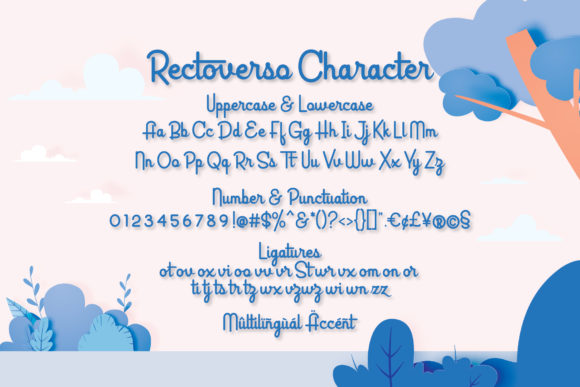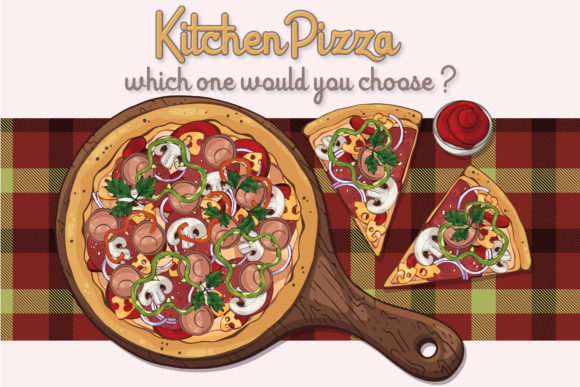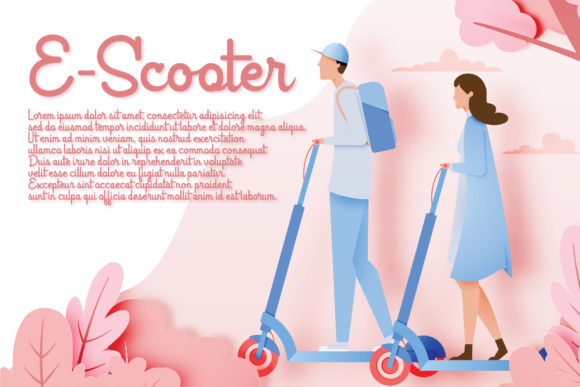
Introduction to Rectoverso Script Font
Have you ever stared at a blank canvas, trying to come up with the perfect design for a creative project? The blank page can be intimidating, but it’s moments like these that we often stumble upon something truly special. For many designers, finding the right design resource can make all the difference between a good project and a great one. And that’s exactly what the Rectoverso Script Font does – it adds a touch of magic to any craft project.
With its transparent background and high-quality design, the Rectoverso Script Font is a valuable asset for designers looking to take their projects to the next level. And the best part? It’s available for free download, making it accessible to anyone who wants to unleash their creativity. Whether you’re a seasoned pro or just starting out, the Rectoverso Script Font is sure to inspire you to new heights of design excellence.
Key Features of Rectoverso Script Font
- Unique, hand-drawn design that offers a high-quality aesthetic for creative projects.
- Comes with a transparent background, making it easy to integrate into any design resource.
- Features a range of characters, including uppercase and lowercase letters, punctuation, and numbers, making it a comprehensive design resource.
- Designed with a high resolution of 300 DPI, ensuring crisp and clear typography in any creative project.
- Perfect for use in digital and print projects, including logos, typography, and creative graphics.
Honest Review: Rectoverso Script Font
I recently had the chance to try out the Rectoverso Script Font and I must say, I’m quite impressed. As a designer, I’m always on the lookout for high-quality design resources that can elevate my creative projects. The Rectoverso Script Font is one such resource that delivers.
- High-quality design: The font is beautifully crafted with a smooth, flowing script that’s perfect for adding a touch of elegance to any design project.
- Transparent background: The font has a transparent background, making it easy to use in any design project, regardless of the background color.
- Limited customization: While the font is beautiful, it’s not highly customizable, which may be a limitation for some designers.
- No bold or italic variations: The font only comes in a single style, which may not be ideal for projects that require bold or italic text.
Overall, I’m really happy with the Rectoverso Script Font. It’s a high-quality design resource that’s perfect for adding a touch of elegance to any creative project. While it may have some limitations, it’s still a great option for designers who are looking for a beautiful, free script font.
The Rectoverso Script Font is a high-quality design resource that offers a beautiful, elegant script style perfect for creative projects. With its transparent background, this font can be easily integrated into various design tools and applications.
– Use the Rectoverso Script Font for headings, titles, or other text elements in your presentation or document.
Tips for Getting the Most Out of Rectoverso Script Font
To get the most out of this font, experiment with different font sizes, colors, and styles to create visually appealing designs. You can also combine the Rectoverso Script Font with other design elements to create unique and eye-catching designs.
The Rectoverso Script Font is perfect for a variety of creative projects, including:
- Event promotions and marketing materials
- Personalized gifts and stationery
Alternatives to Rectoverso Script Font
Pacifico is a beautiful script font perfect for creative projects that require a touch of elegance. It’s great for designing invitations, logos, and other visual elements that need a high-quality, handwritten feel. Pacifico is a free download and can be used on both personal and commercial projects.
Compared to Rectoverso Script Font, Pacifico has a more refined and sophisticated look, making it ideal for high-end designs. While Rectoverso Script Font has a more casual, handwritten feel, Pacifico is better suited for formal events and occasions.
Q: Does the Rectoverso Script Font have a transparent background?
No, the Rectoverso Script Font does not have a transparent background. It’s a solid font with a beautiful, elegant design. However, you can use image editing software to create a transparent background effect if needed.